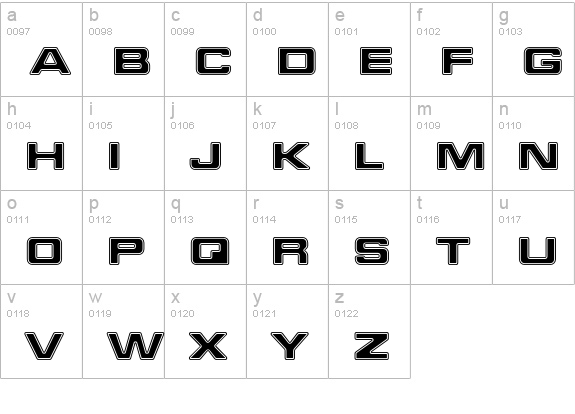
Millenium Bold Extended Font Details
Millenium Bold Extended is a strong, high-contrast, extended-width variant in the Millenium typeface family \xE2\x80\x94 well suited to headlines, attention-grabbing titles, and strong calls-to-action.